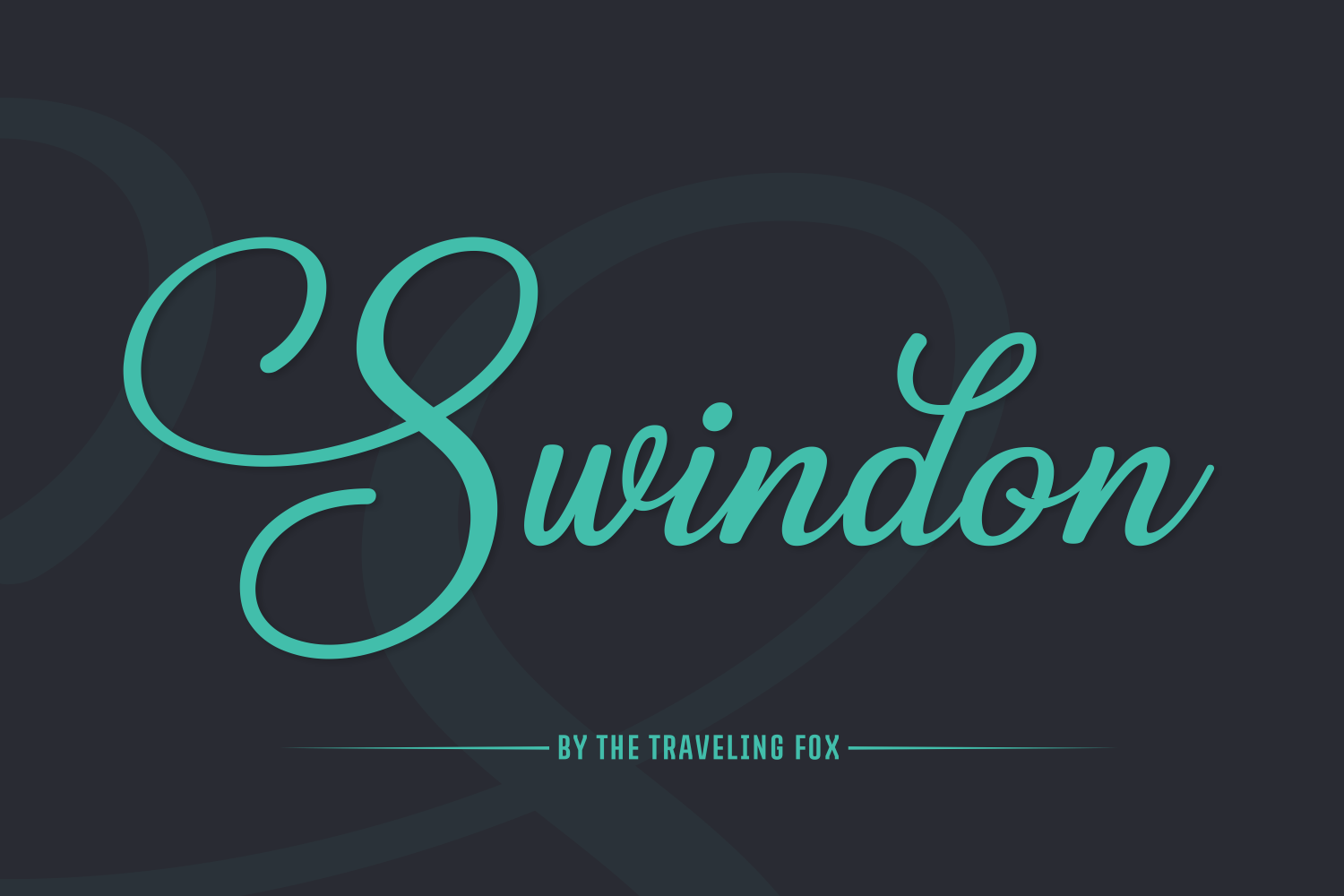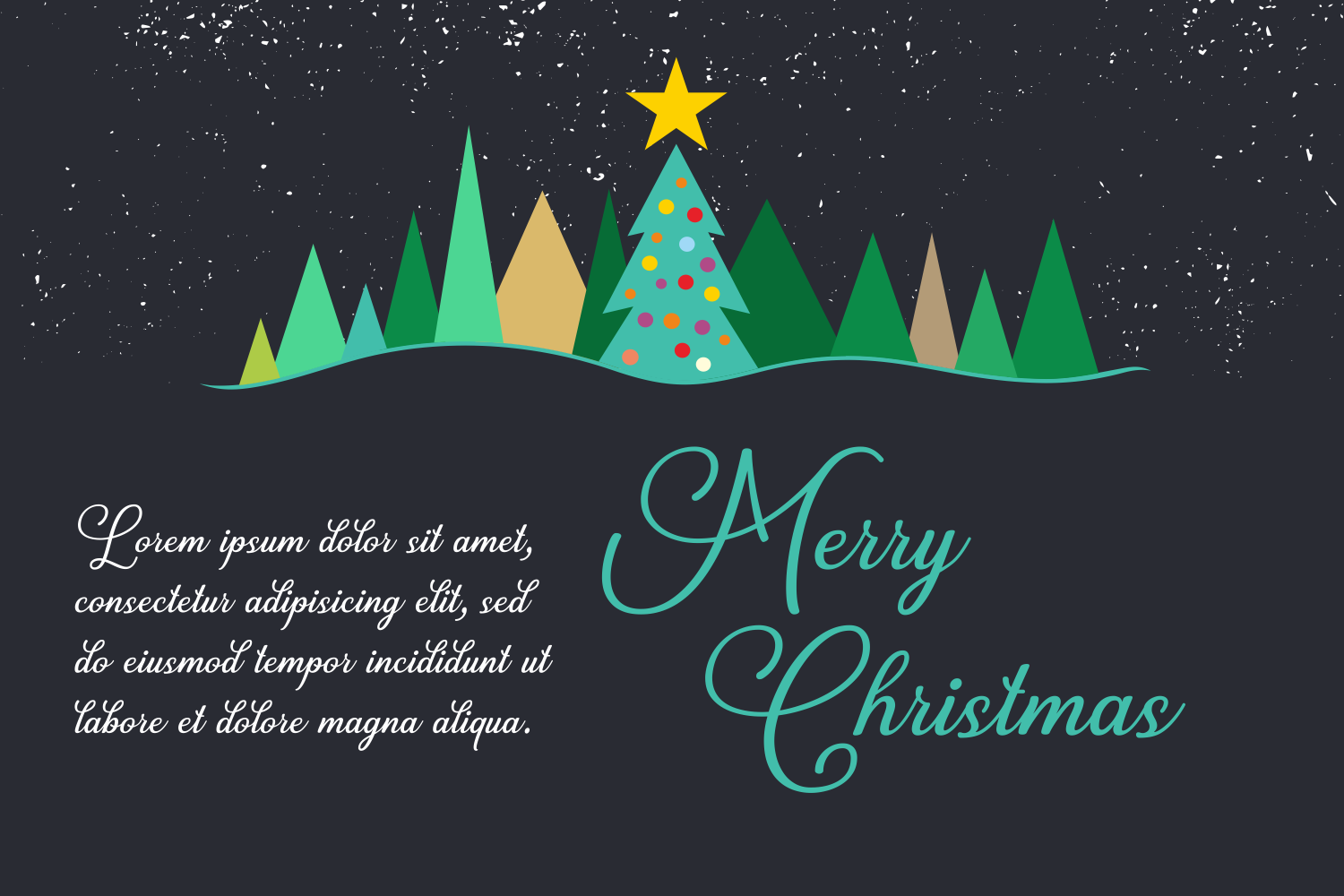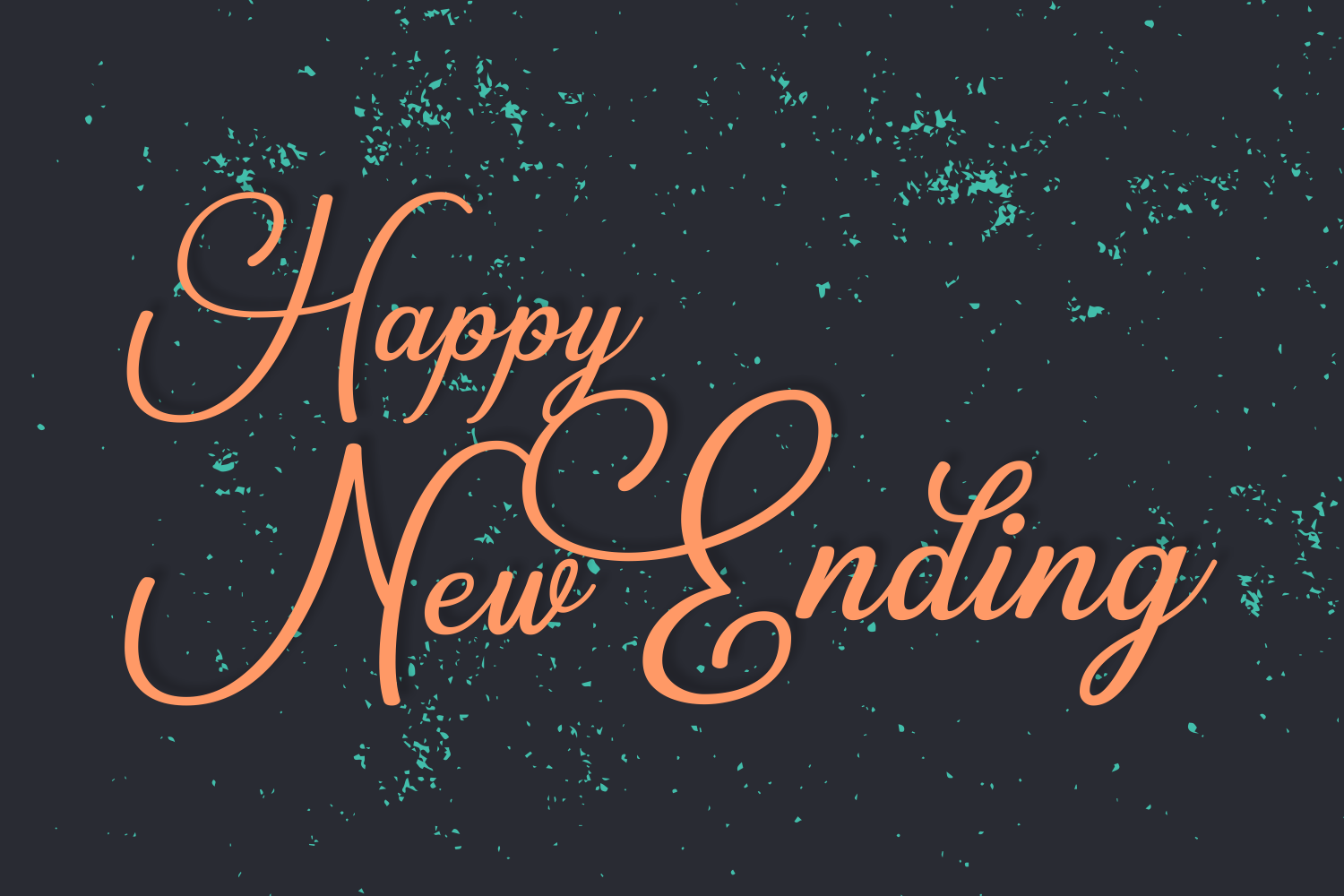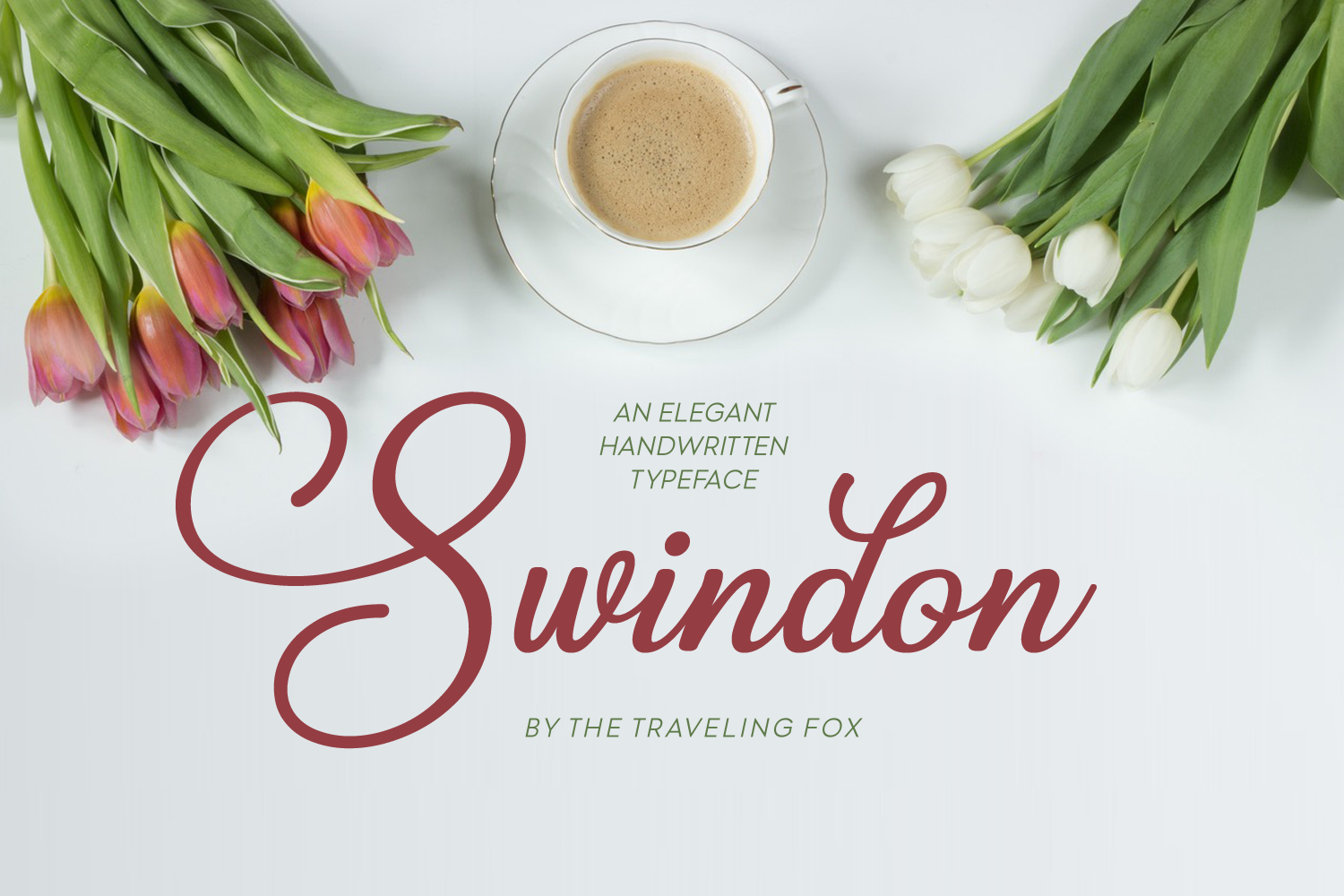
Swindon Font
About Swindon Font
Swindon is a bold, playful type that comes with stunning rounded letters.
It’s very pleasant on the eyes, great for die-cutting on Silhouette & Cricut and is perfect for both print & web use.